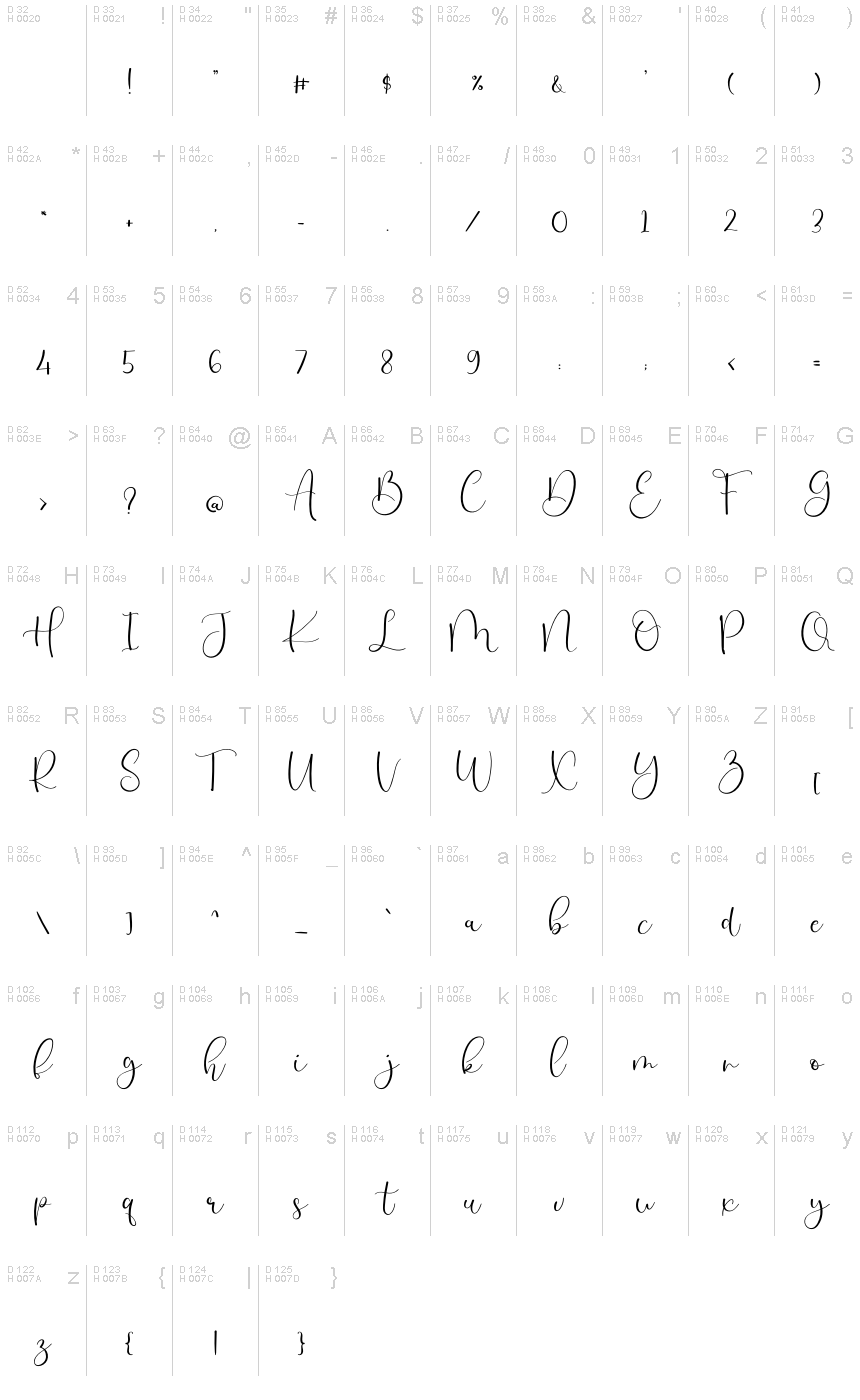
Simple Minimalist
Simple Minimalist, the exquisite calligraphy font by Behind the Ink, effortlessly combines elegance and simplicity. With its semi-light weight, it adds a touch of sophistication to any project. Perfect for wedding invitations, luxurious branding materials, or refined packaging designs, this font will elevate your creations with its graceful strokes and delicate curves. Whether you're designing a high-end fashion magazine or crafting an artistic logo for a boutique café, Simple Minimalist is the ideal choice to bring an air of refinement and modernity to your work. Let this font transform your projects into timeless masterpieces.